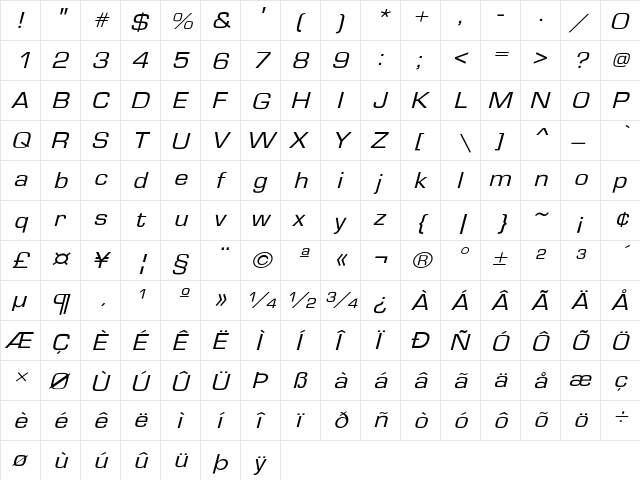
EurostileExtObl-Normal Regular
Design Context for EurostileExtObl-Normal Typeface
EurostileExtObl-Normal takes a measured approach to typography — its balanced proportions and neutral character make it a reliable workhorse for both digital and print work.